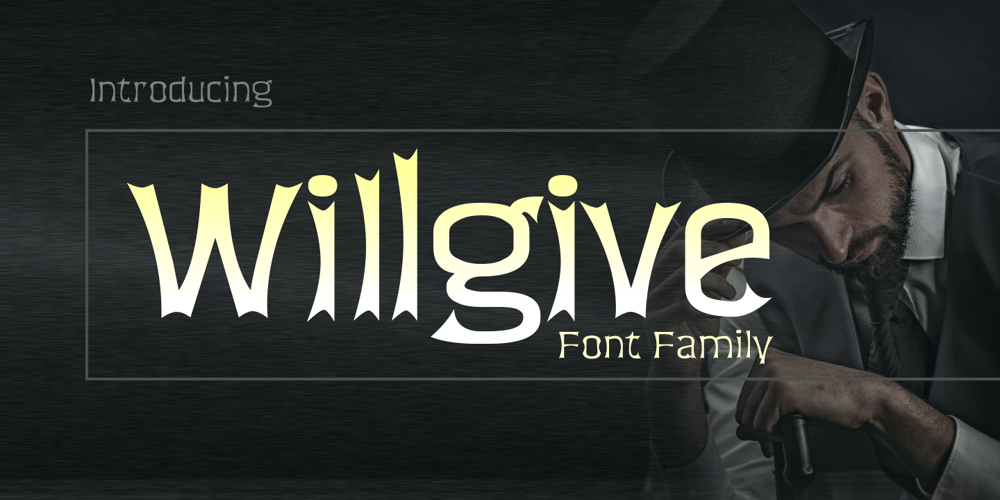
Willgive
Willgive font
Willgive Font Family was designed by Ahmad Zulfikar Ali and published by ZetDesign. Willgive contains 4 styles and family package options. willgive is a font with a firm and pointed tip which is perfect for writing with a strong impression, this font has 4 families that can be used according to your wishes.